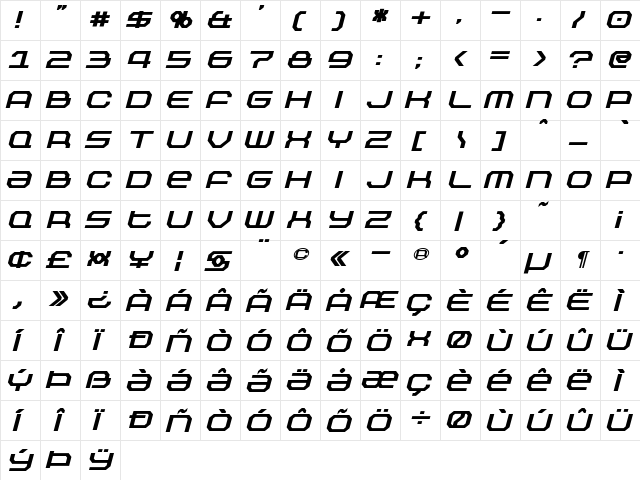
Outland Bold Italic Font Preview
| Foundry | Pixel Sagas |
| Designer | Neale Davidson |
Design Context for Outland Typeface
Outland takes a measured approach to typography — its balanced proportions and neutral character make it a reliable workhorse for both digital and print work. The dynamic lean of this cut emphasises speed and emphasis in any layout. The heavy weight commands attention and anchors typographic hierarchies.
Pro Tip: Try Outland for annotation and caption copy alongside an upright companion — the contrast in angle creates a dynamic but ordered typographic system.